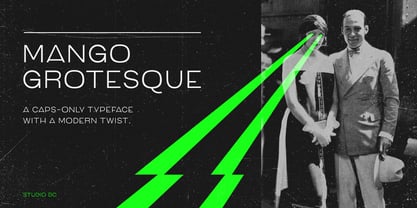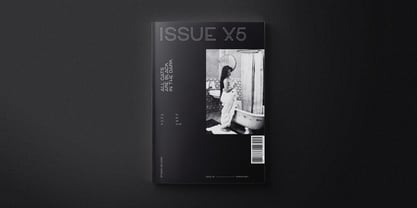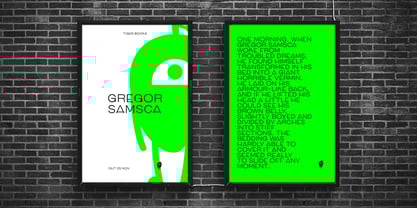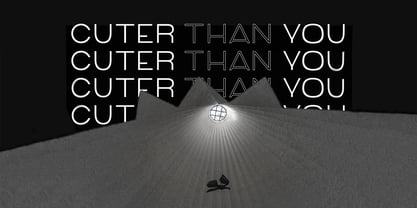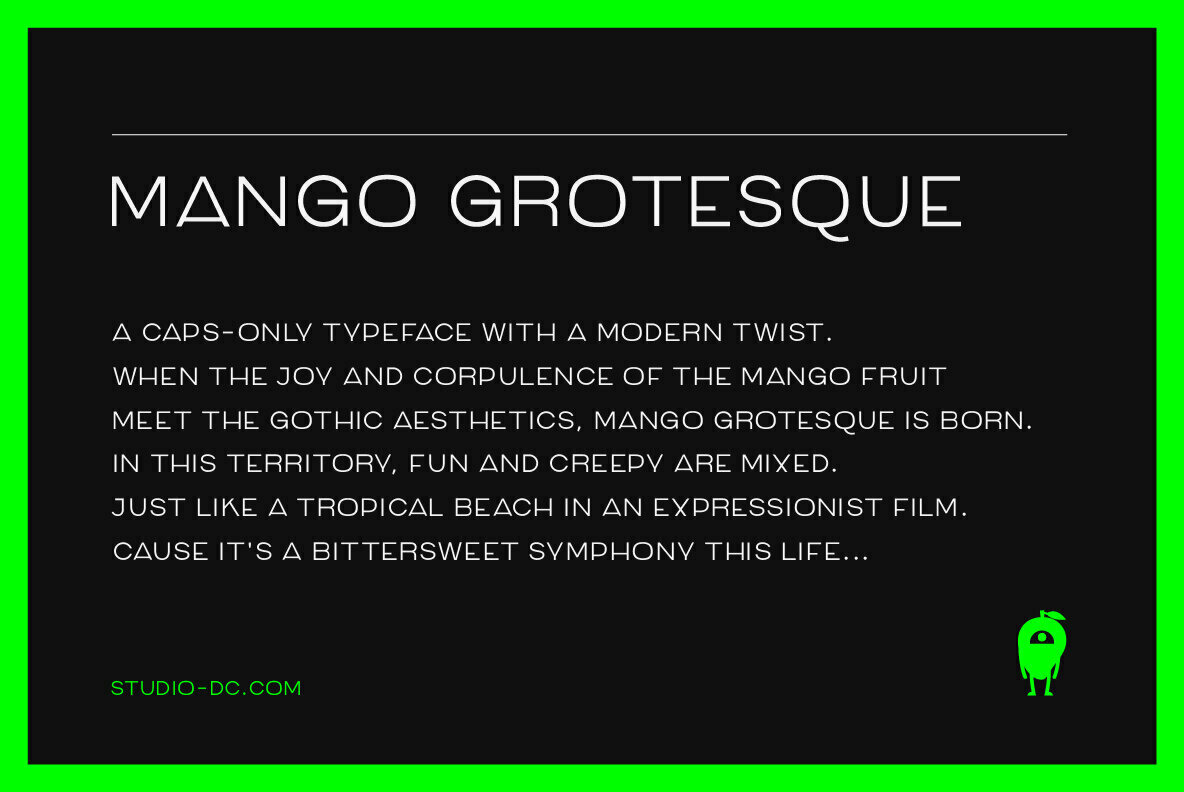
Mango Grotesque Font
This Mango Grotesque Font is perfect for tropical restaurant branding, juice bar signage, summer fashion campaigns, fruit packaging design, wellness brand materials, organic food labels, vibrant poster designs, lifestyle magazine layouts, beach resort communications, and colorful advertising projects.
What makes this Mango Grotesque Font exciting is its perfect fusion of playful tropical energy with sophisticated grotesque typography principles. The font features clean, modern letterforms infused with warm, inviting character that evokes the freshness and vitality of tropical fruits. Its balanced structure combines professional readability with organic warmth, making it ideal for brands seeking to communicate natural authenticity with contemporary appeal.
The Mango Grotesque Font family includes light, regular, medium, and bold weights with rounded alternates and stylistic variants. This comprehensive tropical-inspired font family provides designers with the flexibility to create fresh, vibrant typographic compositions while maintaining the clean grotesque structure essential for modern brand communications.
Food and lifestyle brands consistently choose Mango Grotesque Font Free Download for projects requiring fresh, natural appeal with modern sophistication. This font's distinctive tropical character perfectly captures the growing consumer demand for authentic, healthy lifestyle brands that communicate freshness, vitality, and organic quality in today's wellness-focused marketplace.
The organic warmth of Mango Grotesque Font showcases carefully balanced letterforms that combine grotesque clarity with natural friendliness. Its approachable character and excellent legibility ensure effective communication across all applications, from detailed product packaging to large-scale environmental graphics requiring tropical authenticity.
Professional designers appreciate how Mango Grotesque Font brings immediate freshness and vitality to brand communications. The font's tropical nature allows brands to communicate health, natural quality, and positive energy while maintaining the professional standards necessary for effective market positioning and consumer trust.
The versatile appeal of Mango Grotesque Font makes it particularly effective for brands emphasizing natural ingredients, tropical origins, and healthy lifestyle values. Its warm character resonates strongly with consumers who appreciate authentic, fresh products and brands that celebrate natural vitality and tropical inspiration.
Whether developing packaging for organic beverages or creating materials for wellness retreats, Mango Grotesque Font Free Download delivers the fresh typographic foundation that natural brands need to communicate their tropical authenticity, healthy values, and the vibrant energy that defines contemporary wellness and lifestyle brand experiences.